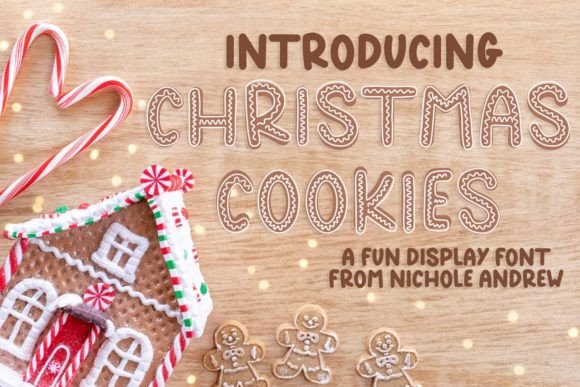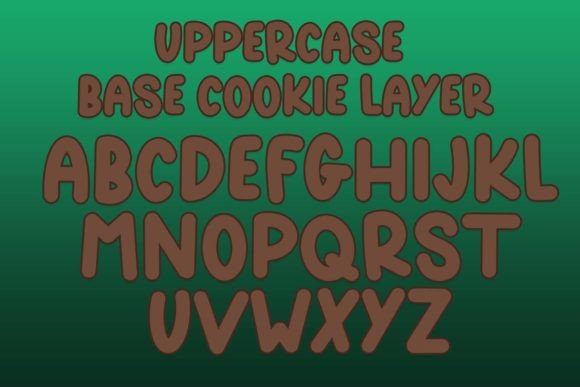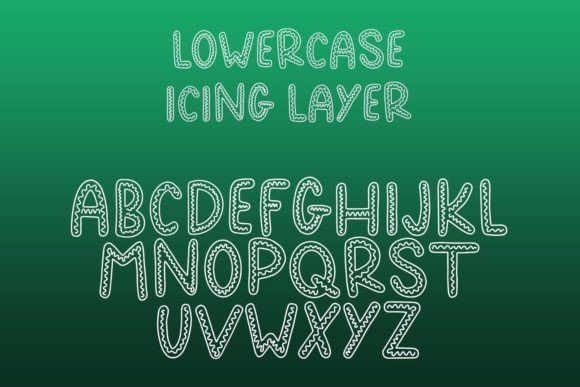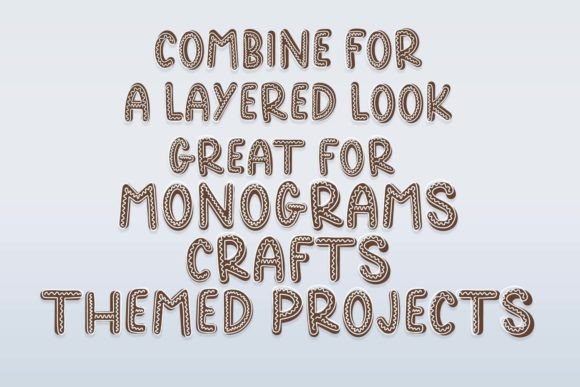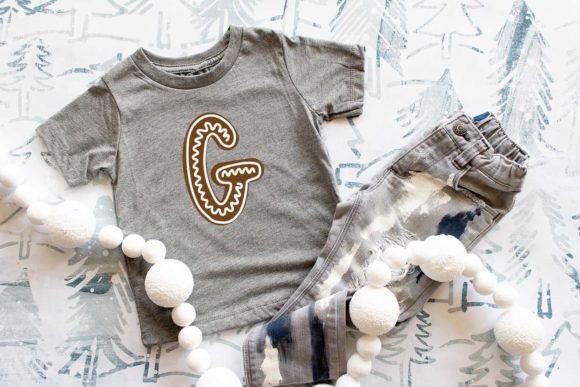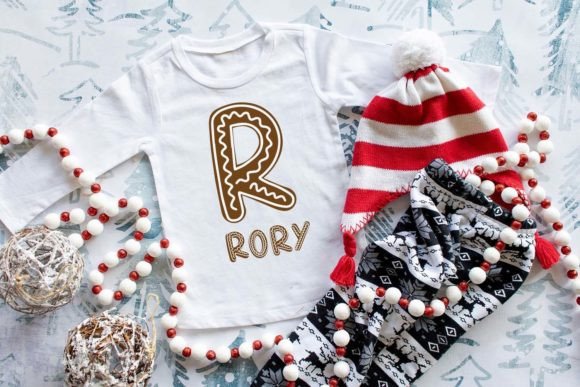
Introducing Christmas Cookies – a fun display font. Featuring solid uppercase and a “frosting” lowercase letters, this layering font is sure to spice up your holiday font collection! Use Christmas Cookies for a variety of projects such as monograms, Christmas cards, kids’ projects, coloring projects, and more!
Christmas Cookies Font